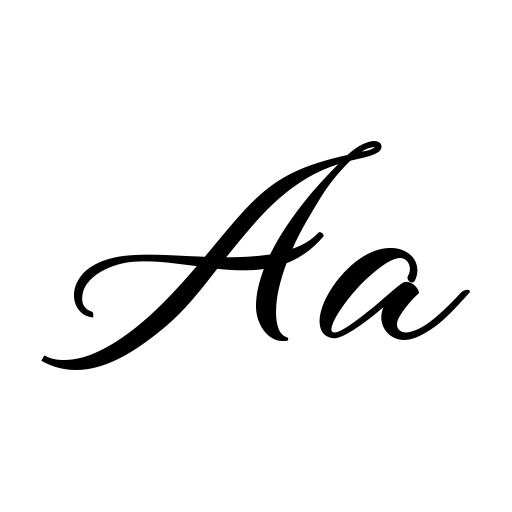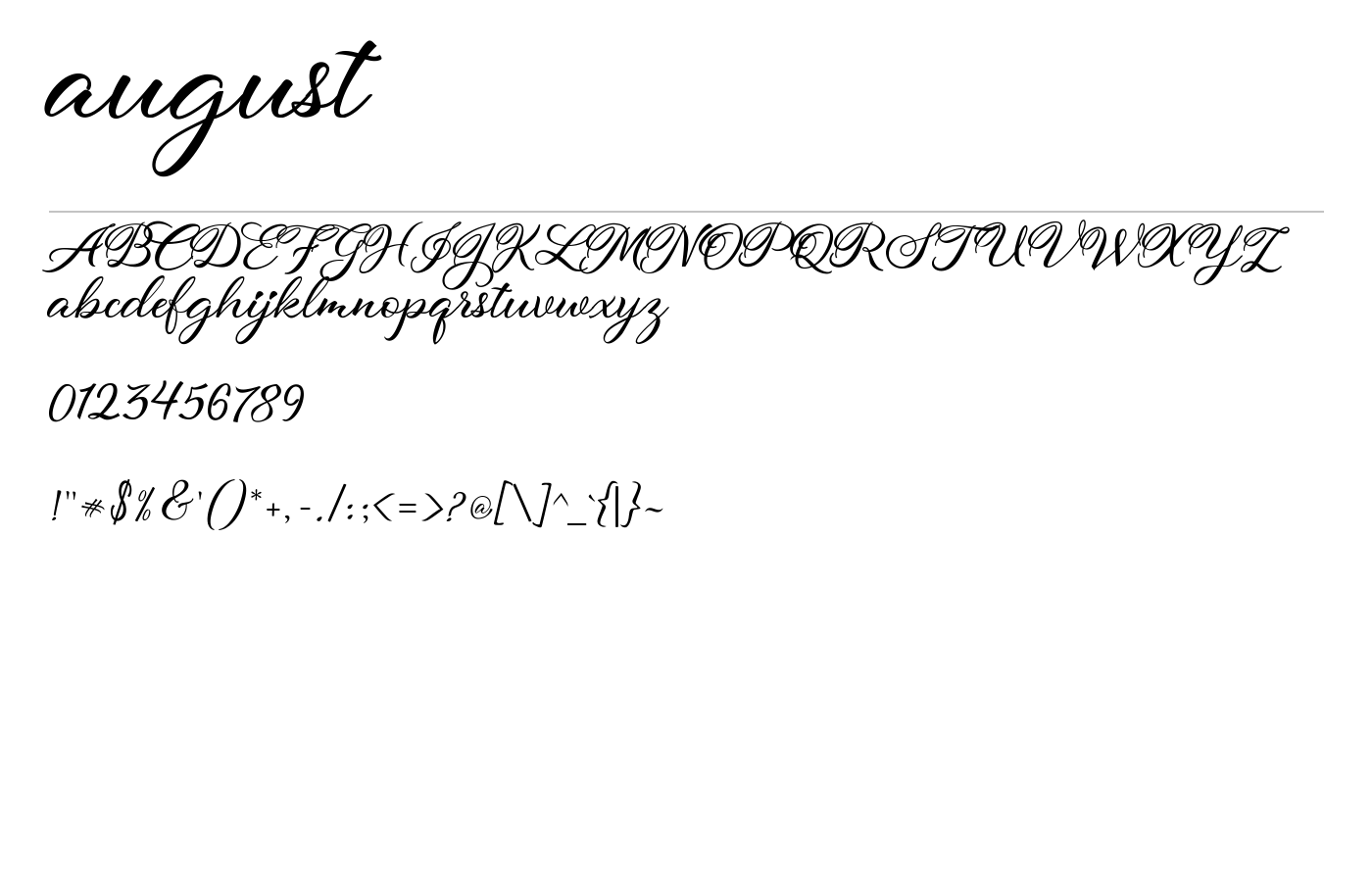
August is a graceful script font with elegant, flowing letterforms that resemble refined handwriting. Its thin, smooth strokes and high contrast give it a sophisticated and classic feel, making it perfect for invitations, branding, and other designs that require a touch of luxury and romance. This font works beautifully in contexts where elegance and a personal, artistic flair are desired.
august Font
About august Font
| Font family | august Font |
| Designer | August_Calligraphy |